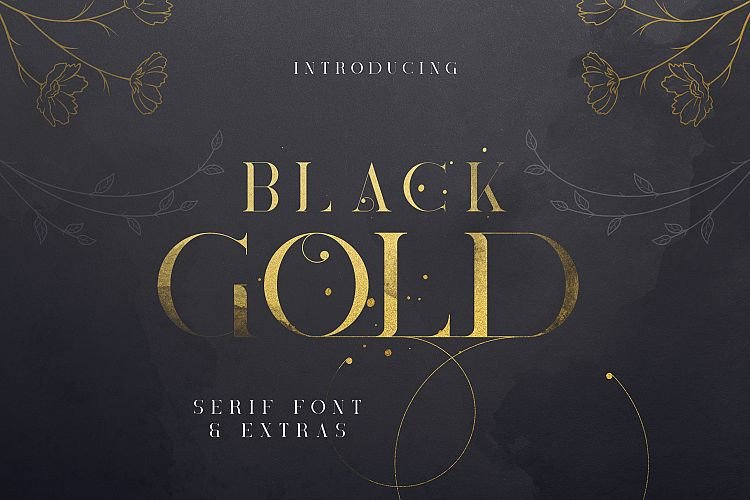
Black Gold Serif Font
Say Hello Guy’s . Thank you for looking Black Gold Font. This is a display titling serif typeface. It can be used to create almost all types of design projects like print materials, minimalist serif that functions beautifully in modern design work – geometric, clean lines; modern serifs. BlackGold designed and shared by VPcreativeshop. Black Gold is sophisticated typeface with tons of alternative glyphs, ornaments, nature elements, photoshop styles, watercolours, ink marks and multilingual support. It’s a very versatile font that works great in large and small sizes. Black Gold is perfect for branding projects, home-ware designs, product packaging, magazine headers – or simply as a stylish text overlay to any background image.